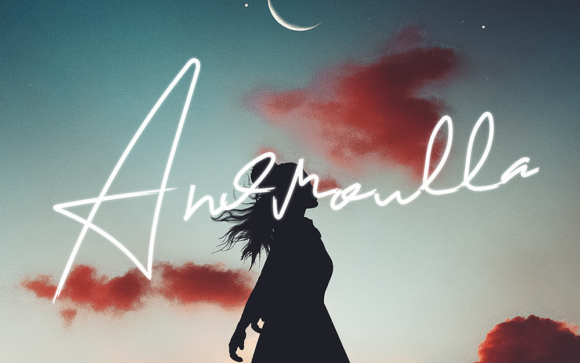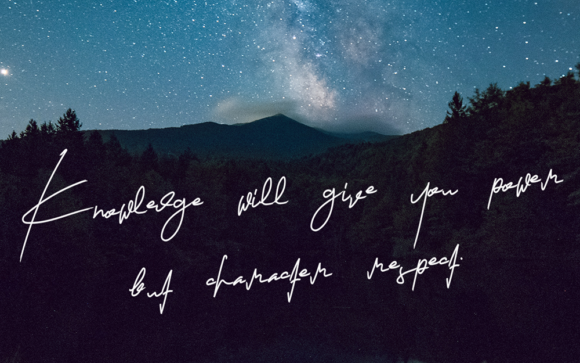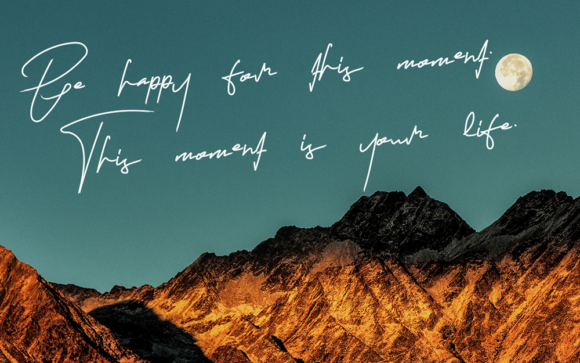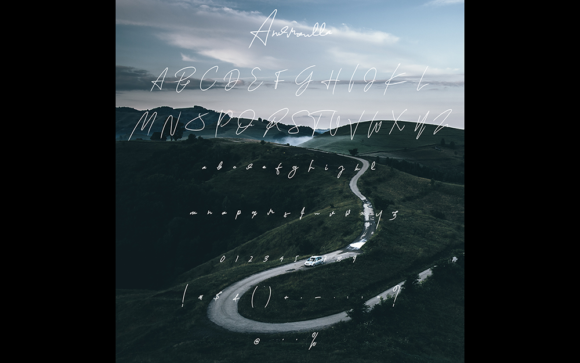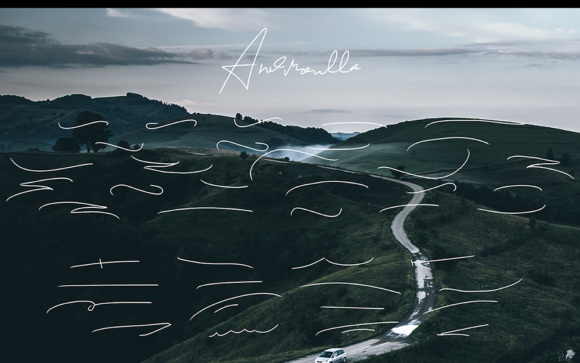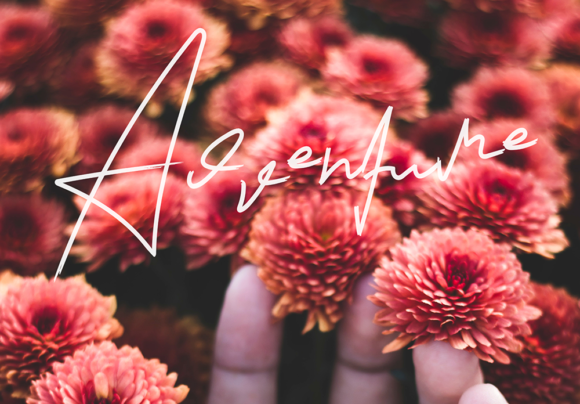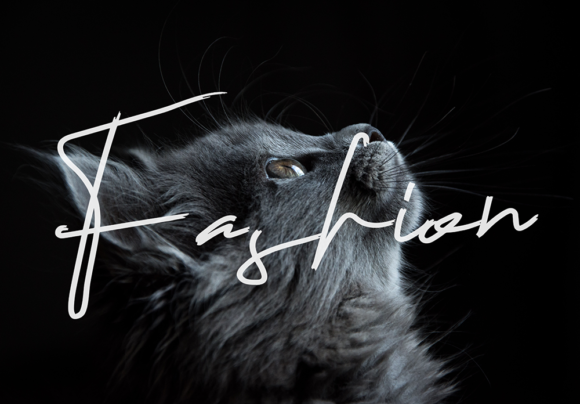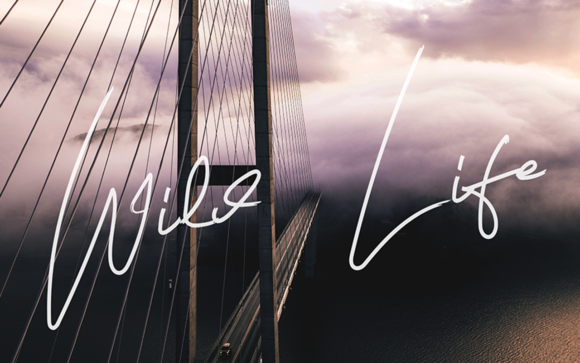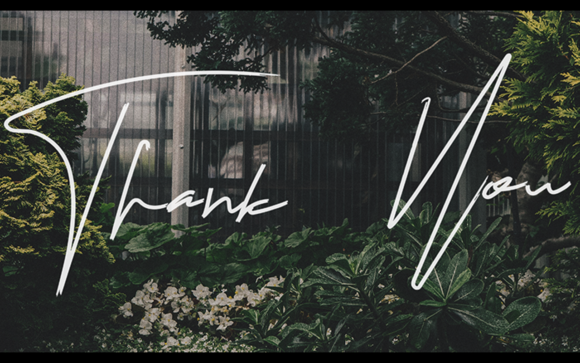
Androulla Font
About Androulla Font
The Androulla is an elegant handwritten font. It has a natural writing style and is perfect for adding a personal touch to your designs.
It can be used for social media, Instagram posts, labeling, clothing, books, album covers, poster, any printable project, and much more!